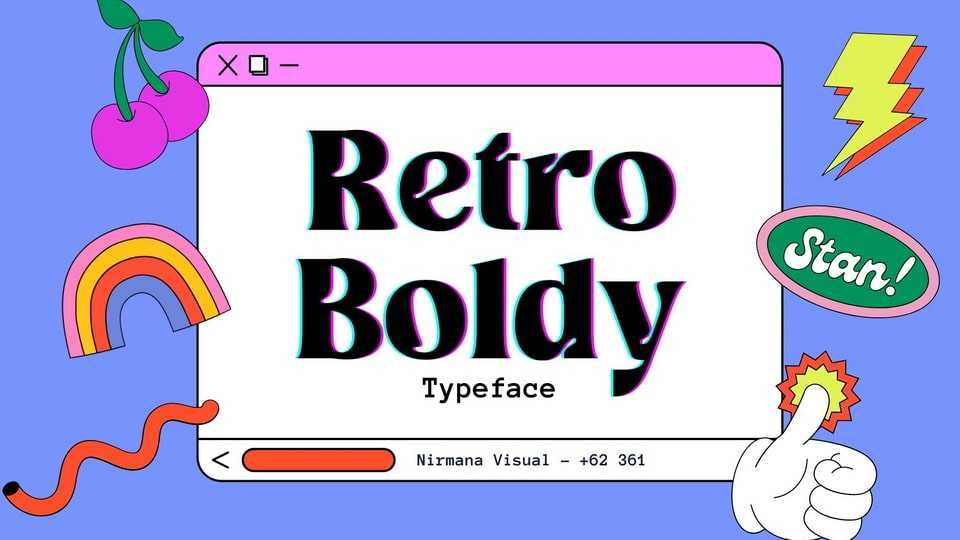
Download Retro Boldy font, a bold, classy, contemporary display typeface inspired by the 90s era. Retro Boldy offers beautiful typographic harmony for a diversity of design projects, including logos and branding, social media posts, advertisements and product designs.